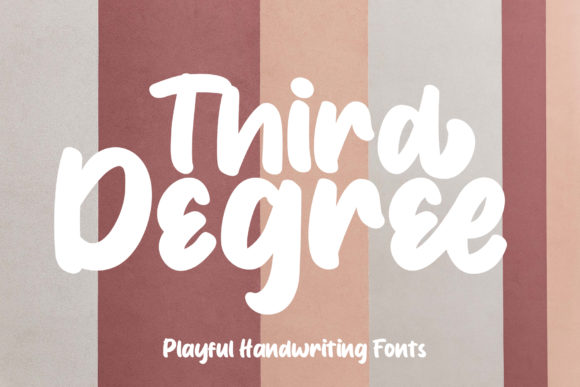
Prepare to be spellbound by Third Degree, a captivating script font that dances across your screens with unparalleled grace and elegance. Each character flows effortlessly, exuding a timeless allure that will elevate your designs to breathtaking heights.
Third Degree is the epitome of sophistication, its every curve and swirl crafted with meticulous precision. Its unique and mesmerizing style will captivate your audience, leaving them utterly smitten with your creations. Whether you're crafting invitations, social media posts, or eye-catching headlines, Third Degree will infuse your work with an irresistible charm.
Embrace the power of Third Degree and unleash your creativity like never before. Its versatility knows no bounds, making it the perfect choice for a multitude of projects. From whimsical branding to unforgettable packaging, Third Degree will transform your designs into unforgettable works of art.
Indulge in the exquisite beauty of Third Degree and elevate your designs to extraordinary heights. Let its captivating charm weave a spell on your audience, leaving them captivated and inspired. Experience the magic of Third Degree today and embark on a creative journey that will leave an everlasting impression.